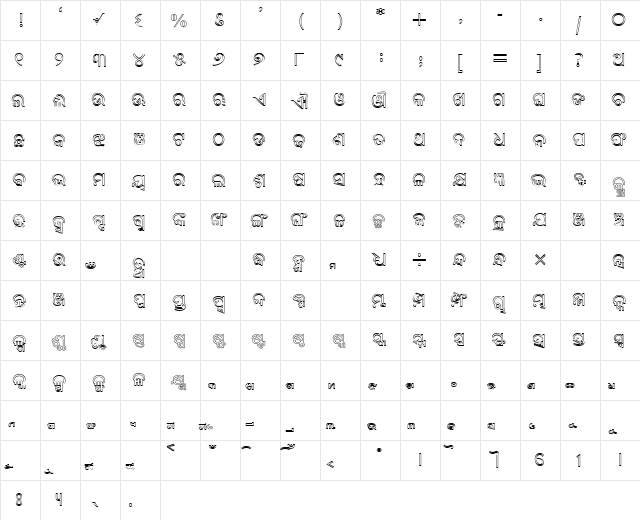
AkrutiOriBudha-99 Normal
Design Context for AkrutiOriBudha-99 Typeface
AkrutiOriBudha-99 offers clean, dependable letterforms without strong stylistic allegiance, making it a practical choice for designers who need flexibility.